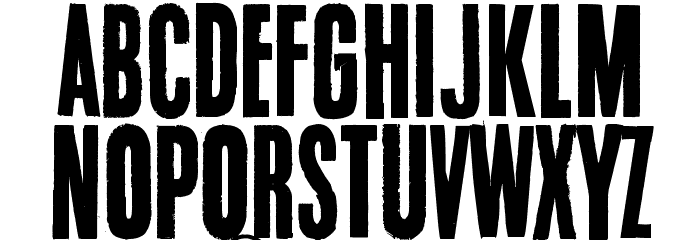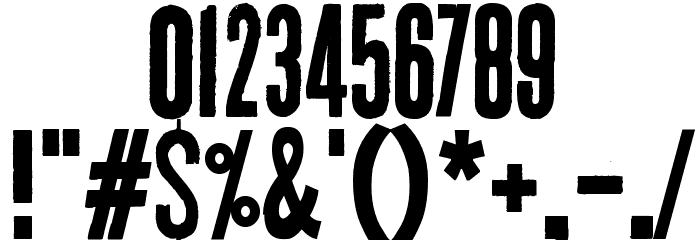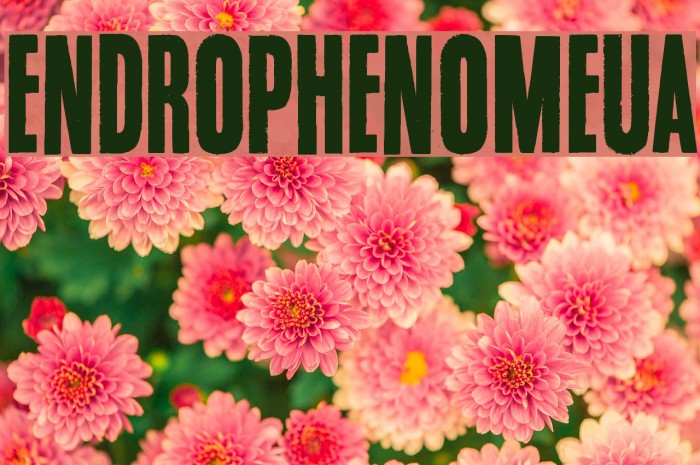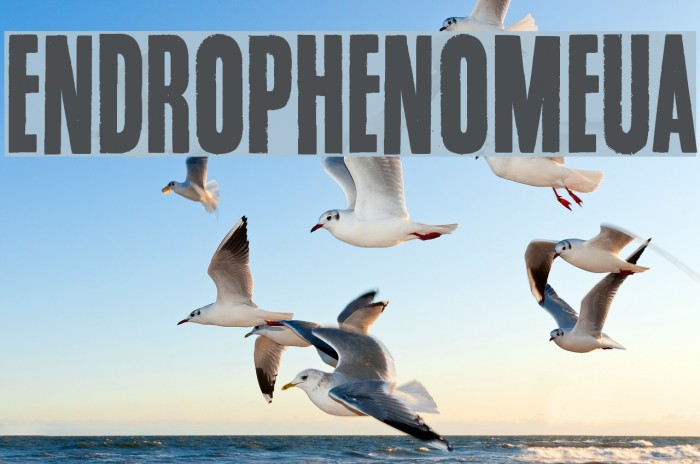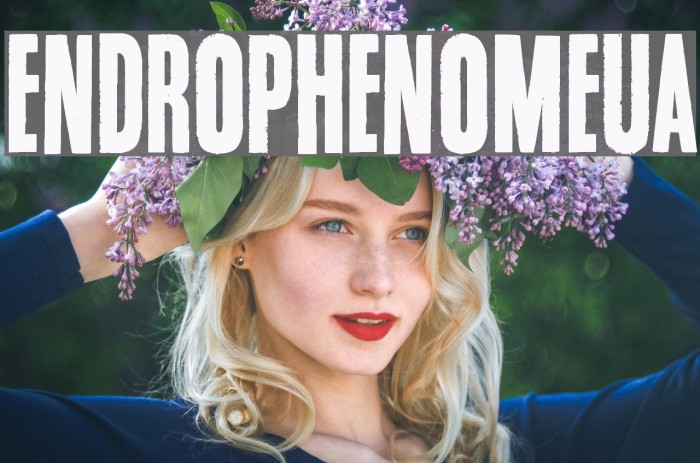
Endrophenomeua Font
This font features a bold and impactful design with a distressed, textured appearance that gives it a rugged and vintage feel. The uppercase and lowercase letters are uniformly bold, with a consistent width that enhances readability while maintaining a strong visual presence. The numbers and special characters are designed to match the boldness of the letters, ensuring a cohesive look across all text elements. The texture adds a unique character, making it suitable for projects that require a touch of edginess or a retro aesthetic.
A bold, textured font with a vintage, distressed style.
- Proposed Projects: Ideal for posters, album covers, branding, and any design needing a bold, vintage touch.
- Overall Style: Vintage